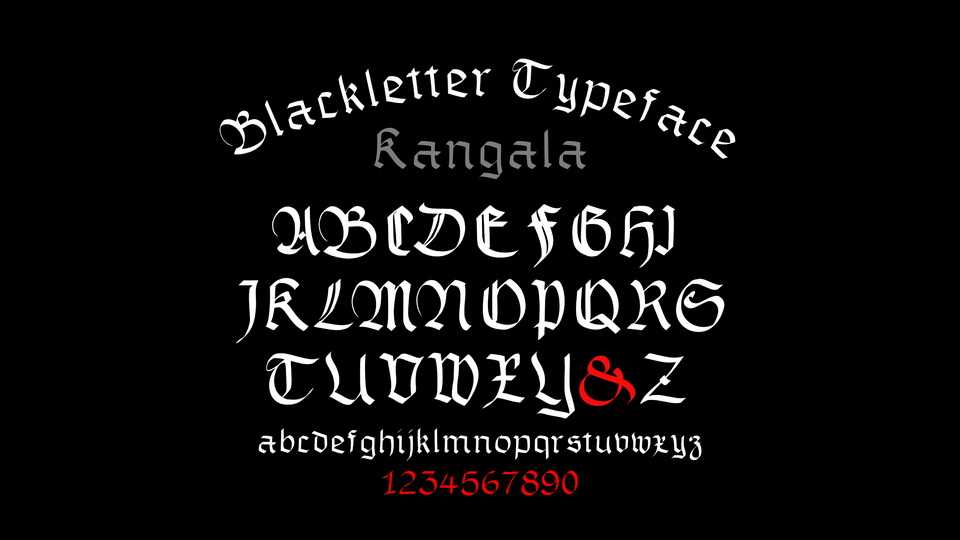
Download Kangala font, a blackletter calligraphy typeface. Kangala is a perfect choice for tattoo logo, barbershop logo, music events, badges, clothing, and other creative tasks.
Designer: Emmanuel Buron